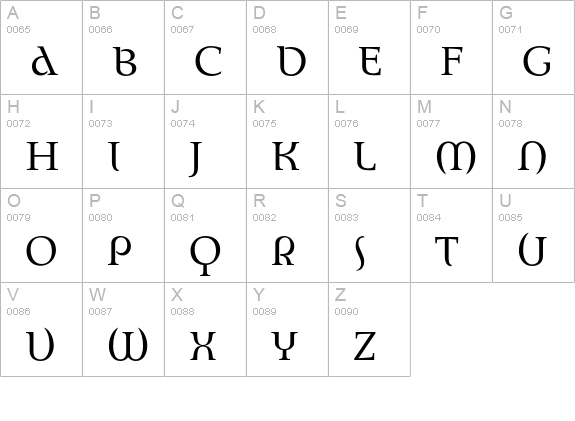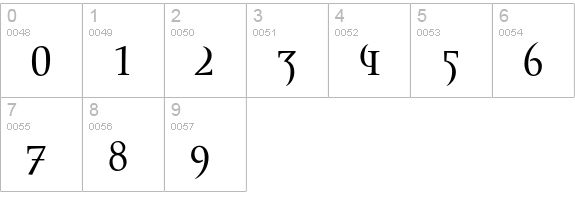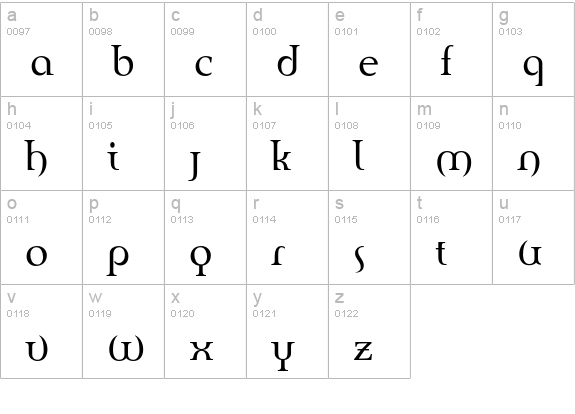
Envision-Roman Font Details
Envision-Roman font exudes elegance and sophistication with its classic yet modern design. This versatile font is perfect for a wide range of design projects, from branding to editorial design. Its clean lines and balanced proportions make it a timeless choice for any creative project. And the best part? Envision-Roman font is available for free download at FontsMarket.com! Whether you're a designer looking to add a touch of sophistication to your work or a business owner wanting to elevate your branding, Envision-Roman font is the perfect choice. Download it today and see for yourself the impact this beautiful font can make on your designs.